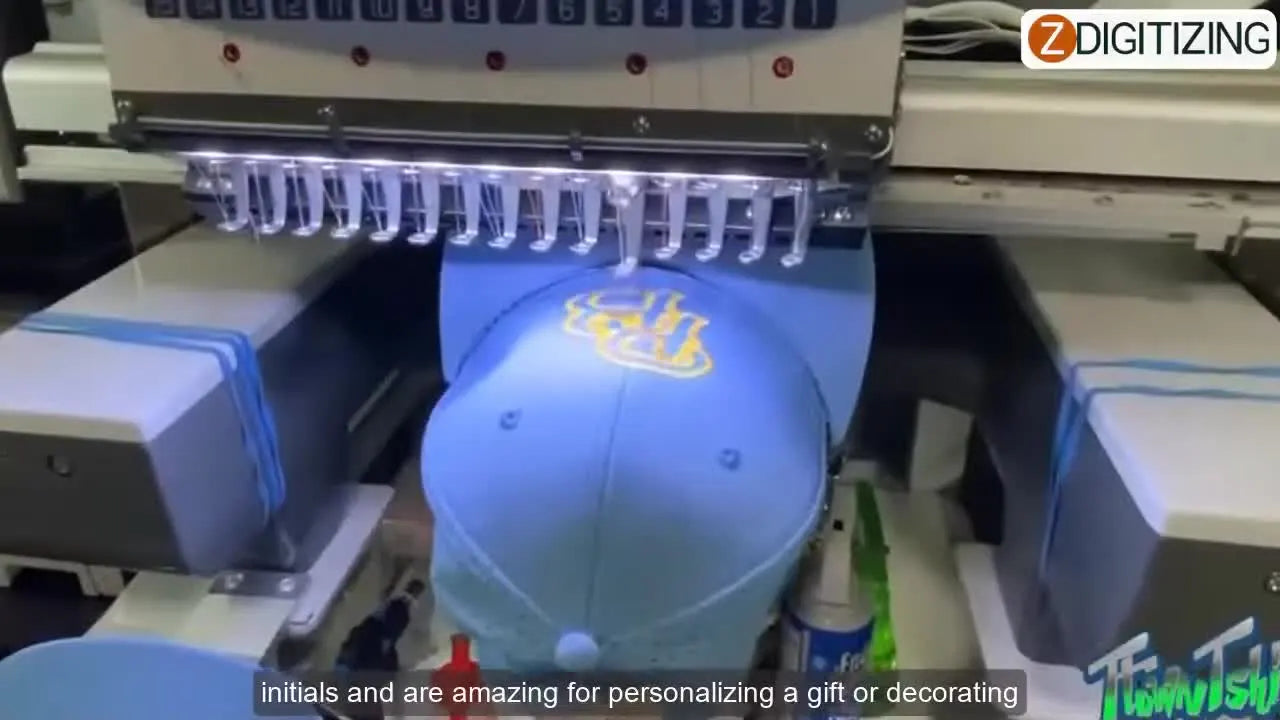
Lettering is where embroidery looks “professional”… or instantly homemade.
If you’ve ever watched a name stitch out and thought, “Why does this look like a fence post?”—you’re not alone. In my 20 years on the shop floor, most lettering failures trace back to one decision made before the first stitch: choosing the wrong font type (or converting a font that was never meant to become stitches).
This article rebuilds the video’s core lesson into a workflow you can actually use: the main embroidery font categories, what each one is good at, what each one will ruin, and how to avoid the two classic traps—the telegraph pole effect and ugly spacing/kerning.
Calm the Panic: “Bad Embroidery Fonts” Usually Aren’t Your Machine’s Fault
When lettering stitches poorly, people immediately blame tension, needles, or the machine. Sometimes that’s true—but with fonts, the bigger culprit is often the file logic: how the stitches were generated and whether the stitch direction follows the shape of the letter.
The video breaks embroidery fonts into five practical buckets:
- Stitch File Fonts (individual pre-digitized letter files)
- Monogram Fonts / Monogram layouts (initials + borders/shapes)
- Auto-Converted TrueType Fonts (computer fonts converted into stitches)
- BX Fonts (keyboard-mapped, pre-digitized stitches)
- Built-in Machine Fonts (fonts inside the embroidery machine)
If you’re running a hobby setup, you can “get away with” more. If you’re selling hats, patches, or team orders, you need repeatable results—because every failed name is time you can’t bill.
One sentence that saves money: a font that looks good on screen can still stitch terribly.
The “Hidden” Prep Pros Do Before Choosing Any Embroidery Font File
Before you even pick a font, you want to know what the job demands. Caps, patches, and thin cotton behave differently, and lettering is unforgiving.
Here’s the prep I do (and teach) because it prevents 80% of rework:
- Analyze the Substrate: Is it a cap (unstable curve), patch twill (solid), or t-shirt cotton (stretchy)? Stretchy fabrics need a font with stronger underlay.
- Define the Style: Do you need satin stitches (shiny, raised) or fill stitches (flat, durable)? Satin looks premium but snags easily on large letters.
- Determine Workflow Speed: Do you need fast typing (names, bulk personalization) or custom control (logos)?
Software Check: Confirm your software can handle the specific font file type you intend to use.
Prep Checklist (do this before you touch the font menu)
- Material Match: Confirm the final product (cap, patch, or flat fabric).
- Goal Definition: Determine if this is logo text (strict branding), a monogram (decorative), or a sentence.
- Speed Requirement: Decide if you need to type quickly (production) or place letters manually (custom).
- Visual Inspection: Open your design view in "Wireframe" or "3D" mode to inspect stitch direction.
- Stabilizer Plan: Lettering magnifies fabric movement. If you are stitching on knits, promote your stabilizer choice one level up (e.g., from tear-away to cut-away).
Stitch File Fonts (PES/DST/JEF Letter Files): Great When You Need Exact Stitches—Awkward When You Need Speed
The video shows stitch file fonts as individual letter files you import one by one. Instead of typing on a keyboard, you are essentially assembling a word manually, like laying tiles.
In the demonstration, letters are imported separately (for example, bringing in “W”, then “O”, then “D”) and aligned by eye—baseline and spacing included.
How to use stitch file fonts the way the video shows
- Locate the files: Open your design folder; each letter (A.pes, B.pes) is a separate file.
- Import individually: Bring one letter at a time into your workspace.
- Drag and align: Use the alignment grid. Look for the baseline (the invisible line the letters sit on).
- Visual spacing: Nudge letters closer or farther apart. Trust your eyes more than the grid lines here.
Expected outcome: You get exactly what the digitizer designed. These are usually high-quality because they were digitized specifically as embroidery.
The big limitation (and the biggest beginner trap)
The video warns that stitch file fonts can’t be resized significantly because they are stitch-based, not vector-based.
- The Math: If you scale a file up 20%, the software just spreads the existing stitches out, creating gaps.
- The Rule: Do not resize these more than 10-15%. If you need a bigger letter, you need a different file.
Monogram Layouts: The Fastest Way to Make Personalization Look Premium (If You Center It Correctly)
- Level 3 (Capacity): if orders require repeatable, high-volume runs (caps/patches/team names), a stable multi-needle platform can hold speed and consistency for lettering all day.
- Success check: fewer restarts/re-hoops, fewer rejected names, and repeat orders can use saved “known good” font + size combos.
- If it still fails, identify the bottleneck (digitizing logic vs stabilization vs hooping time) and address that single constraint before buying more capability.